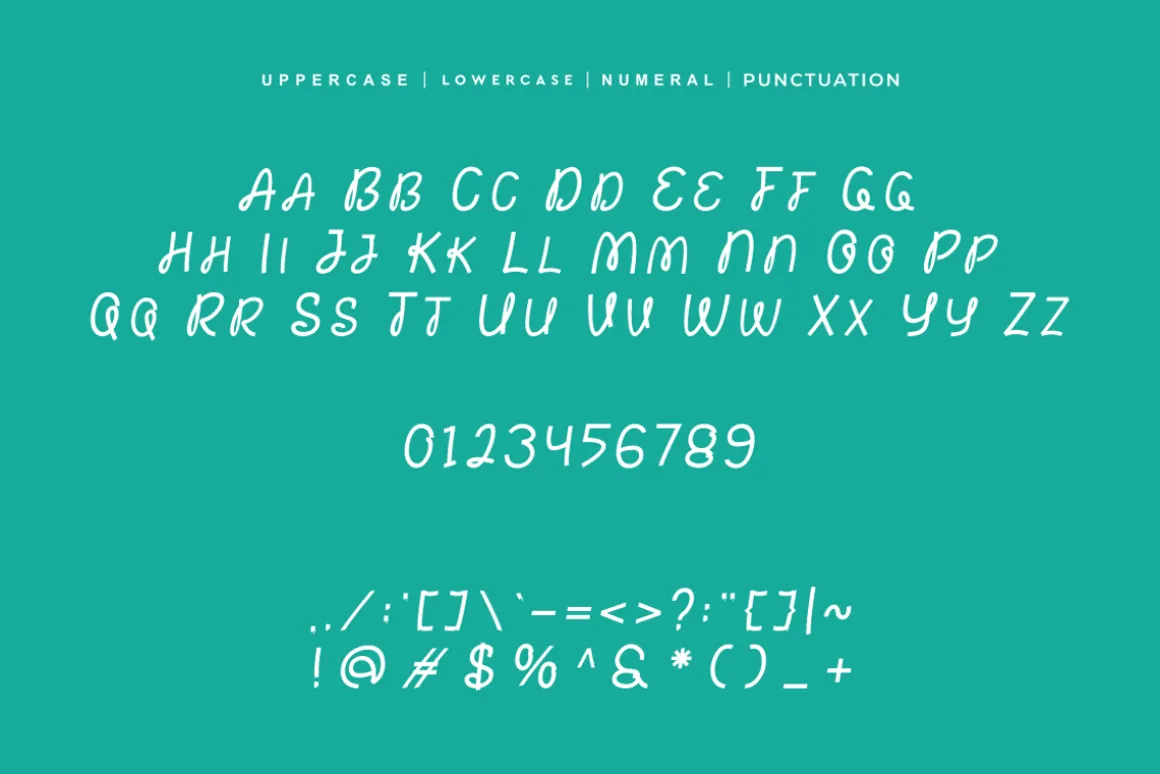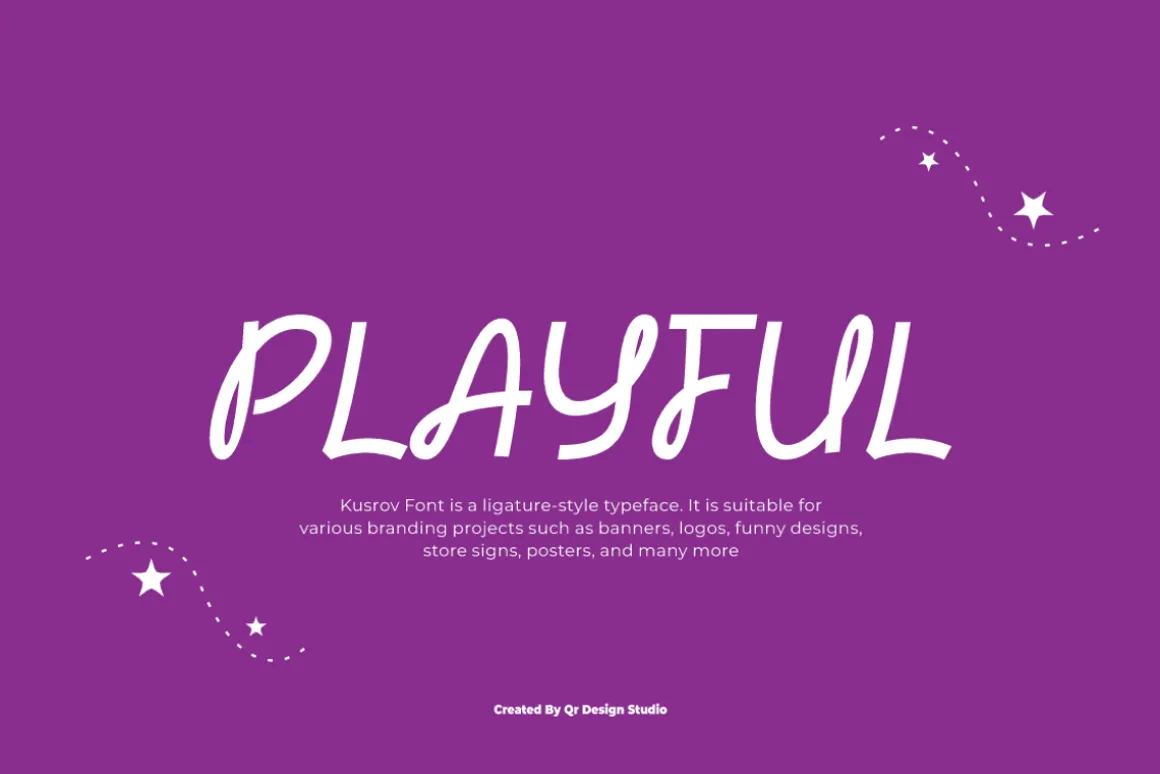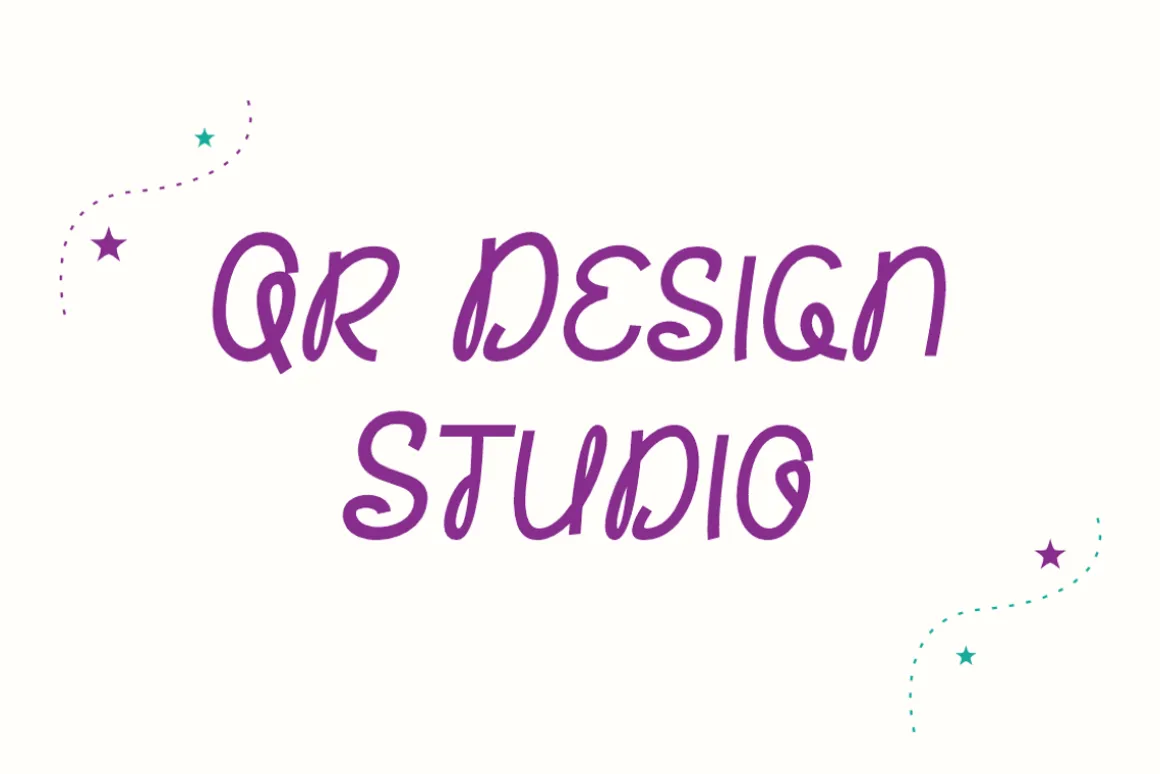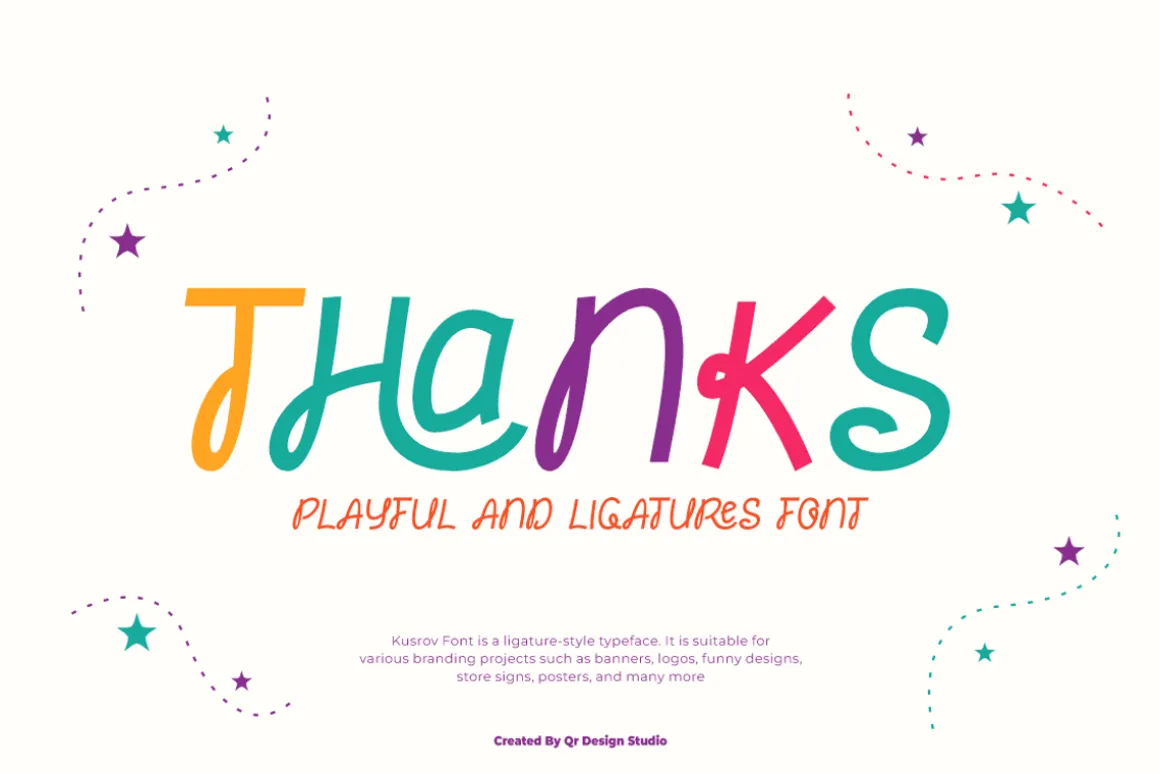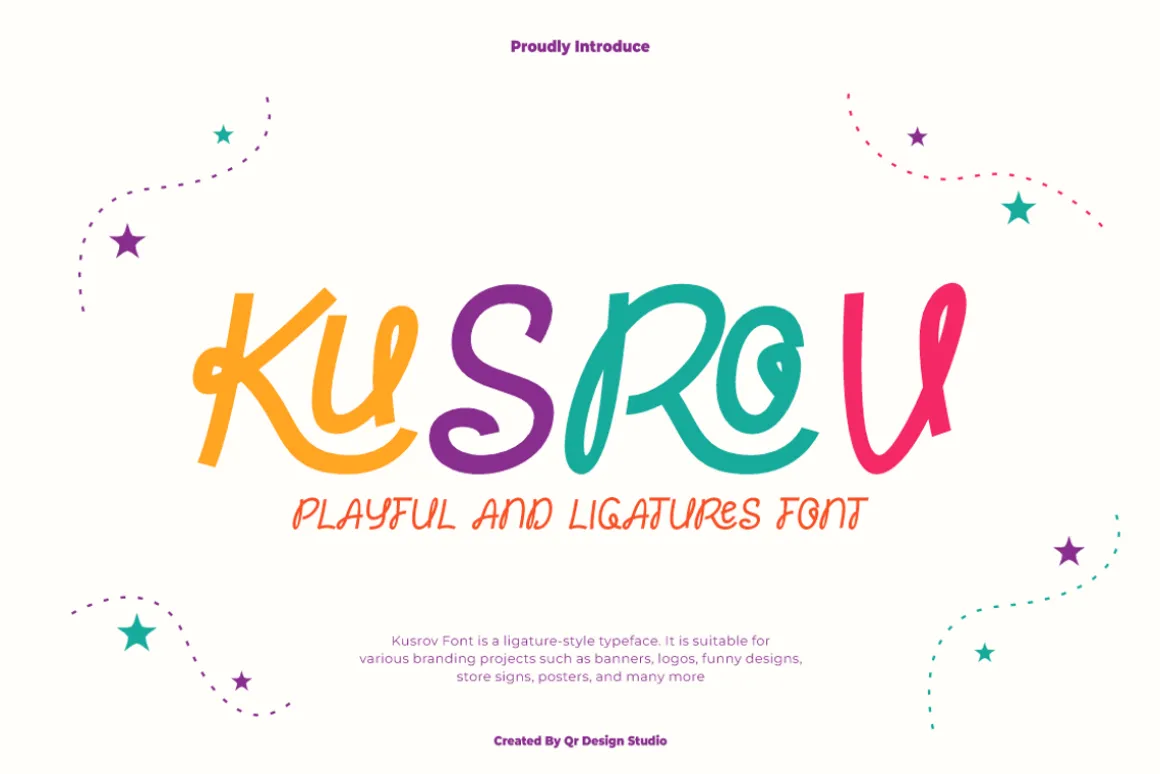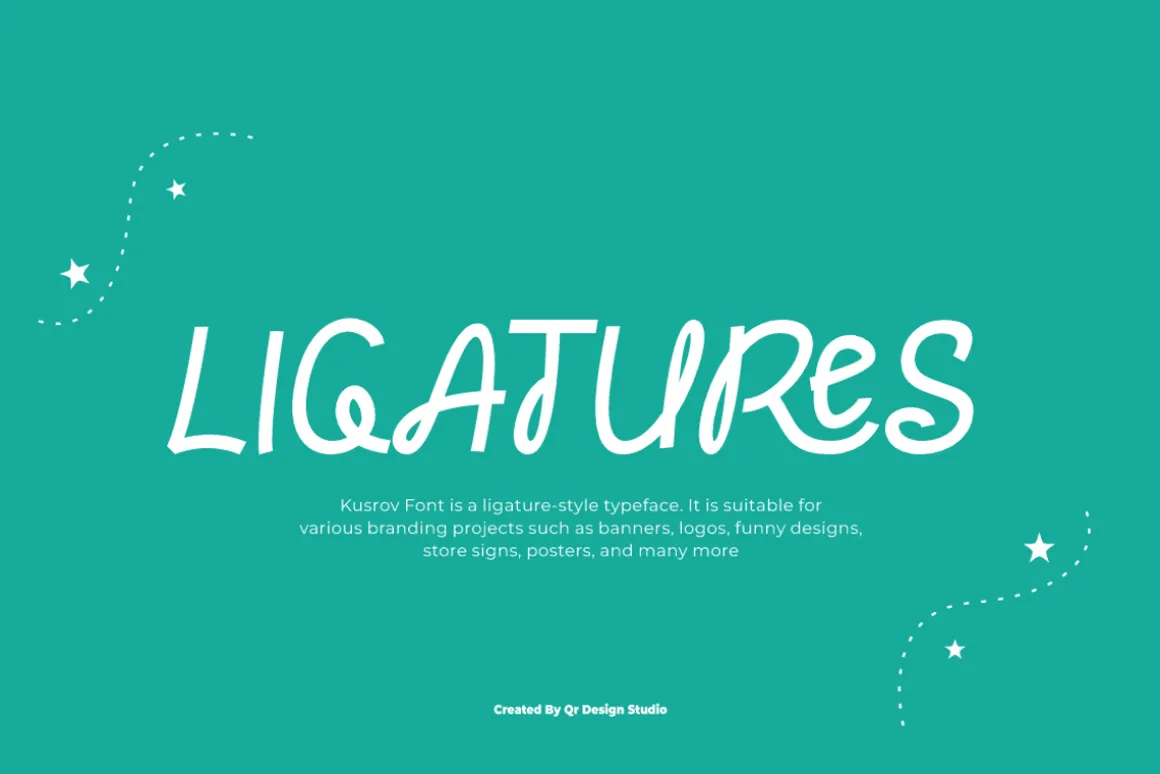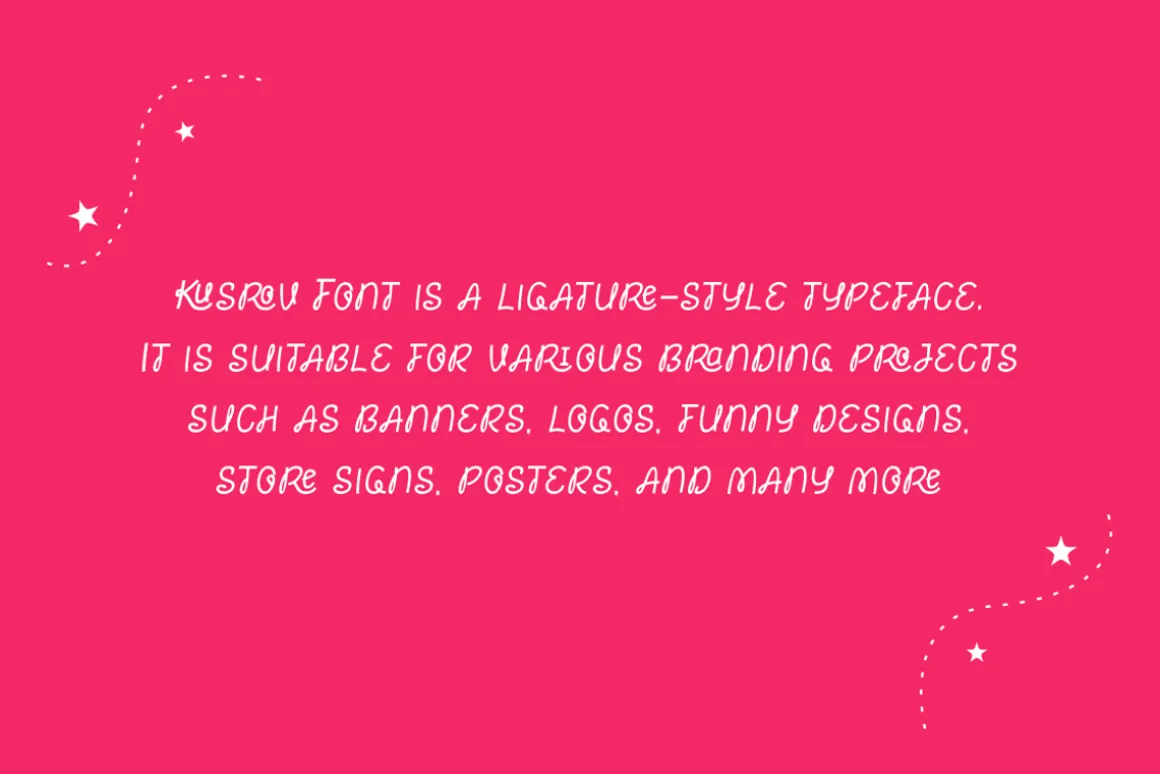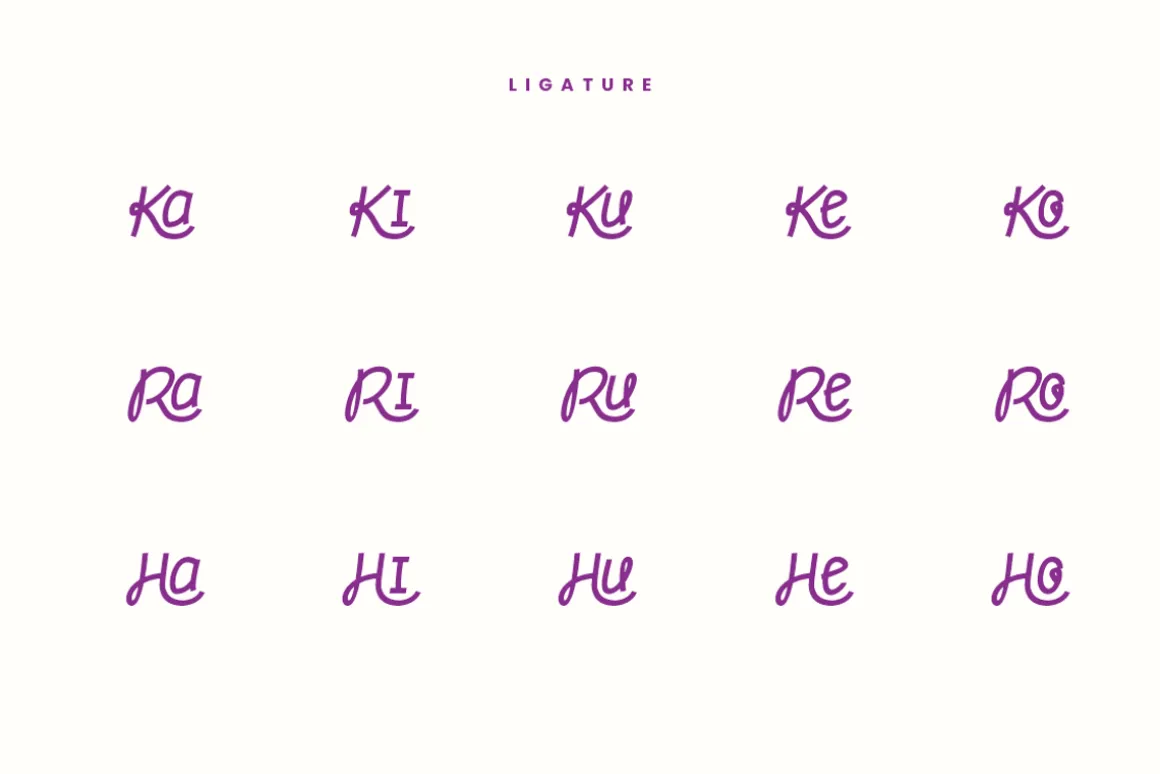
Kusrov Font is a handwritten and authentic display typeface.It’s perfect for various branding projects such as logos, playful designs,and more. This font stands out beautifully in a wide range of contexts.